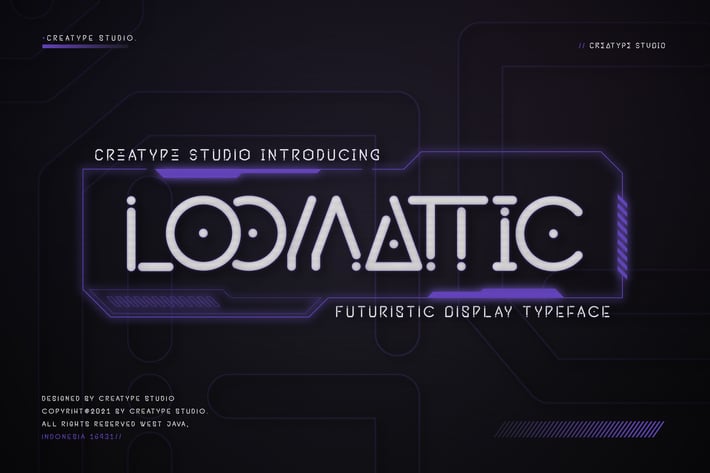
Loomattic Futuristic Business Font
Loomattic is a futuristic display typeface that is perfect for works or products such as technology, sci-fi, science, and any type of project that requires a futuristic feel.
Loomattic is perfect for branding projects, logo, wedding designs, social media posts, advertisements, product packaging, product designs, label, photography, watermark, invitation, stationery and any projects that need handwriting taste.
Ton of glyphs
Ligature & Alternate